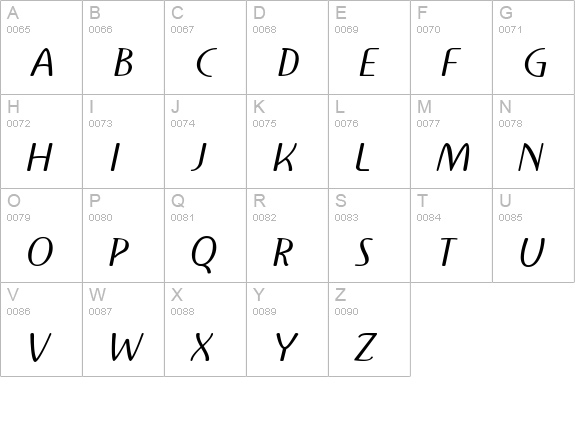
IngrianaCasual Italic Font Details
IngrianaCasual Italic is a distinctive, italic variant in the IngrianaCasual typeface family \xE2\x80\x94 well suited to design and typography projects.
Introducing IngrianaCasual Italic, a font that effortlessly combines elegance with a touch of informality. Designed to add a unique flair to your projects, this font exudes a sense of relaxed sophistication that is perfect for a variety of creative endeavors. With its slanted, italicized letterforms, IngrianaCasual Italic captures attention and adds a playful yet refined touch to any design. From invitations and greeting cards to branding materials and social media posts, this font will elevate your work and make it stand out from the crowd. What makes IngrianaCasual Italic even more enticing is that it is absolutely free! Yes, you read that right. This font is freely available to download at FontsMarket.com, a trusted source for high-quality fonts. Now, you can enhance your projects without worrying about breaking the bank. Whether you're a professional designer or simply someone who loves to dabble in creative pursuits, IngrianaCasual Italic is a must-have addition to your font collection. Its versatility, charm, and affordability make it an ideal choice for both personal and commercial projects. So why wait? Discover the beauty and versatility of IngrianaCasual Italic today. Head over to FontsMarket.com and download this stunning font for free. With IngrianaCasual Italic in your toolkit, you'll have the power to create captivating designs that leave a lasting impression.